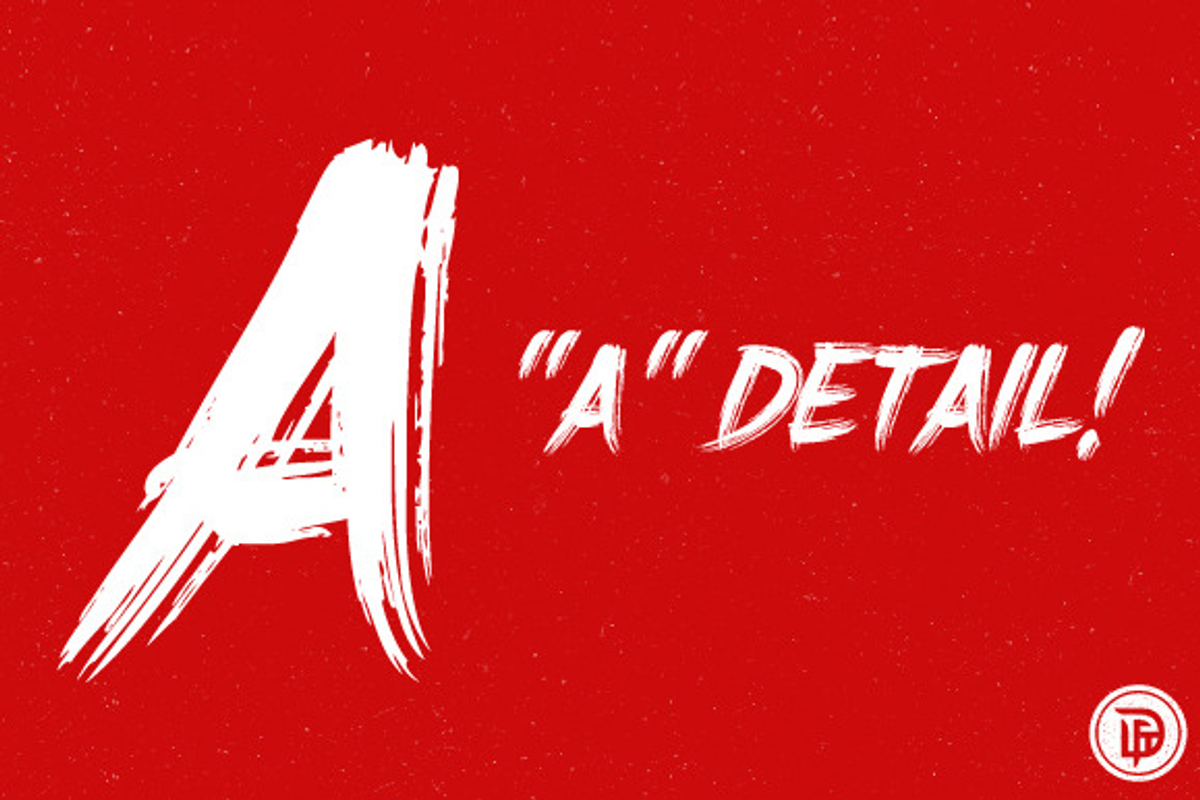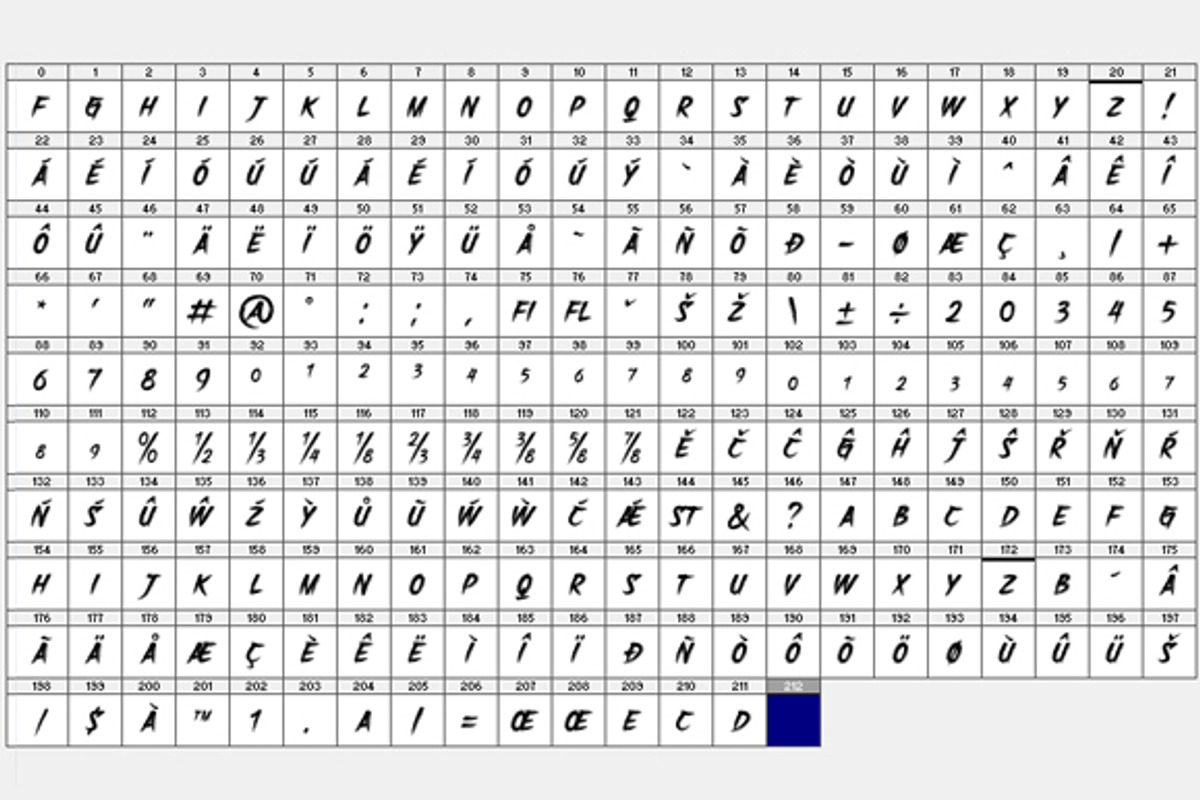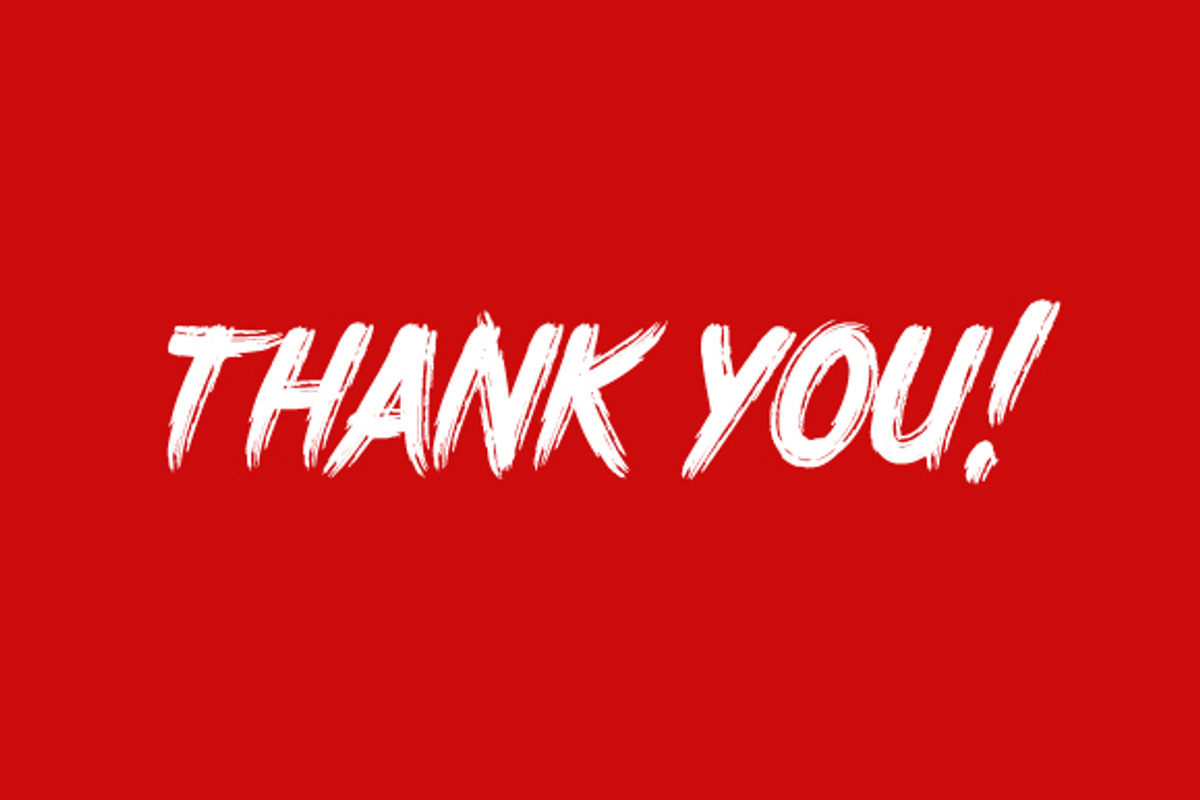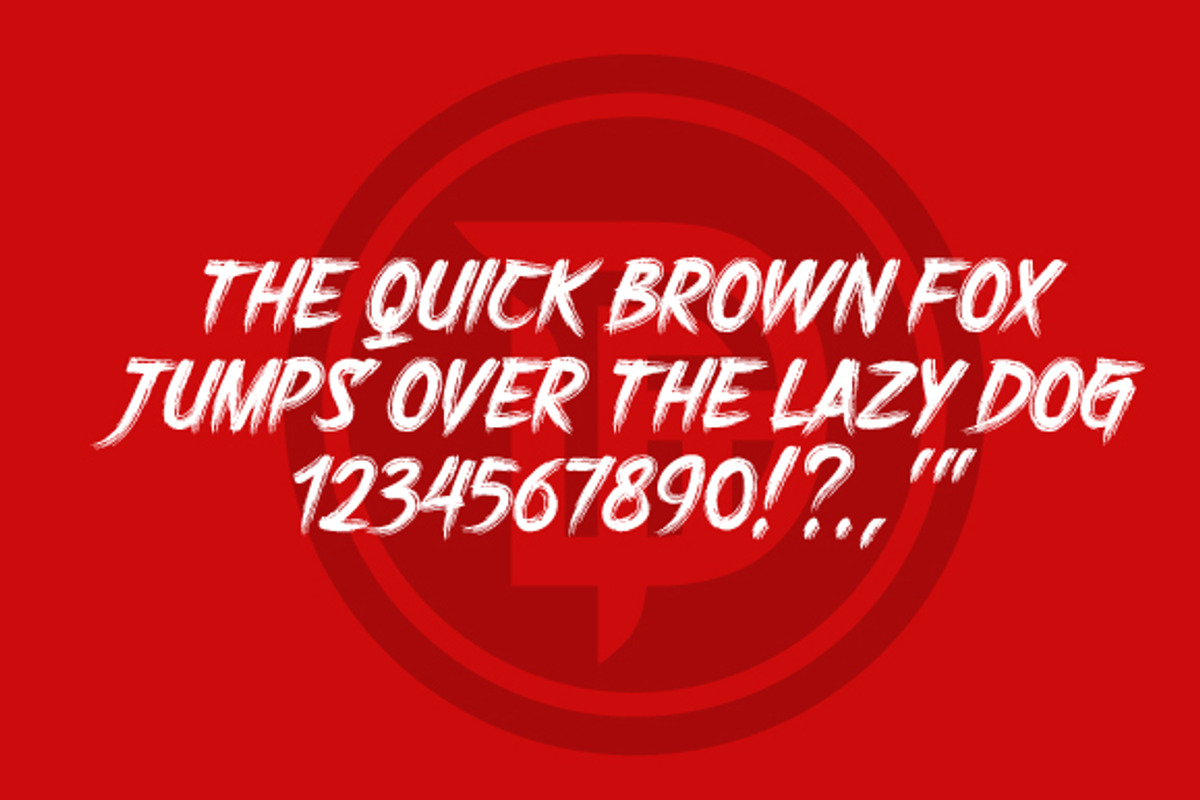
Harry's Brush - Brush Textured Font
- Harry's Brush is a brush font that's comes with 216 Glyphs, Accent & have 2 format font that's Open Type & True Type.